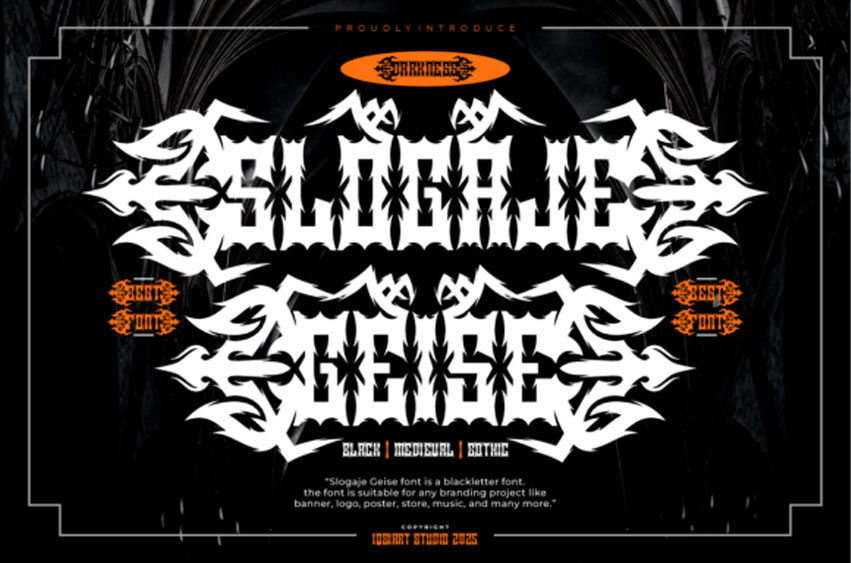
Slogaje Geise Font
Slogaje Geise Font is a sharp and highly stylized blackletter font, ideal for gothic, metal, and medieval-themed branding.
The bold strokes and tribal-like extensions lend it a powerful, intimidating presence that stands out on posters, album covers, and apparel. Perfect for creating mystique and bold visual identity.